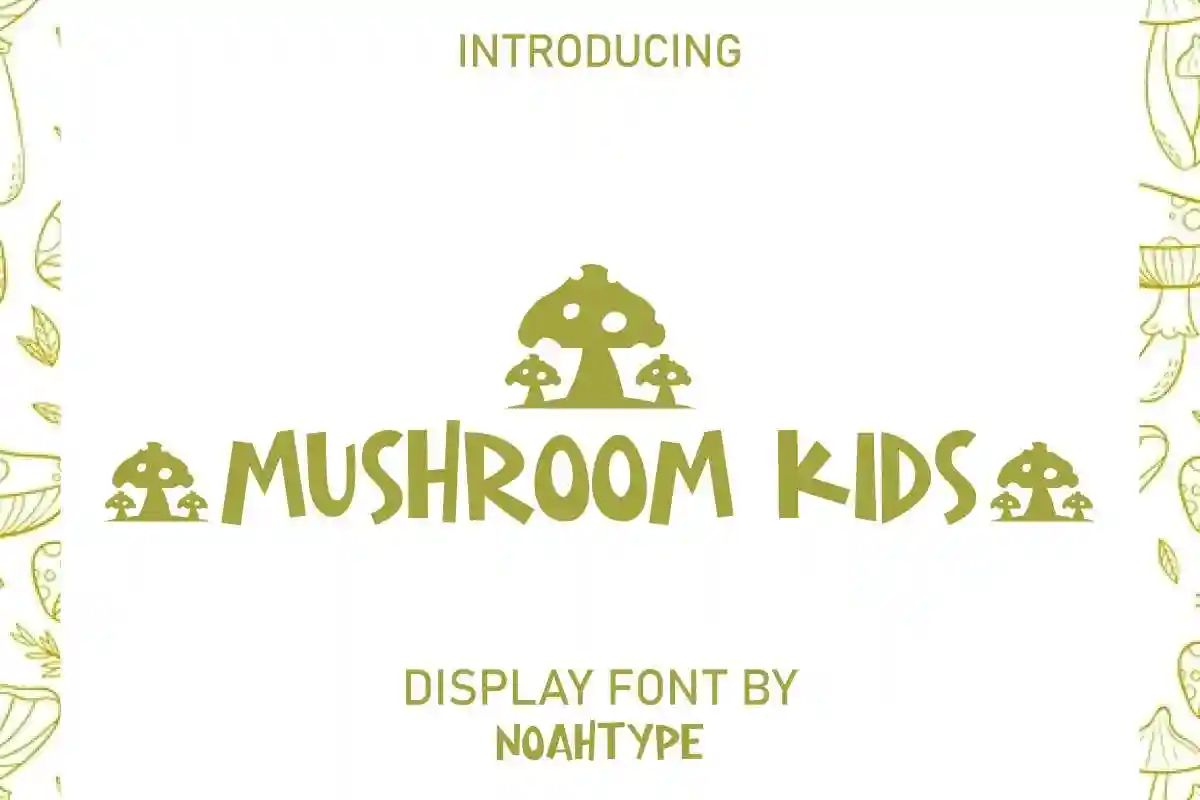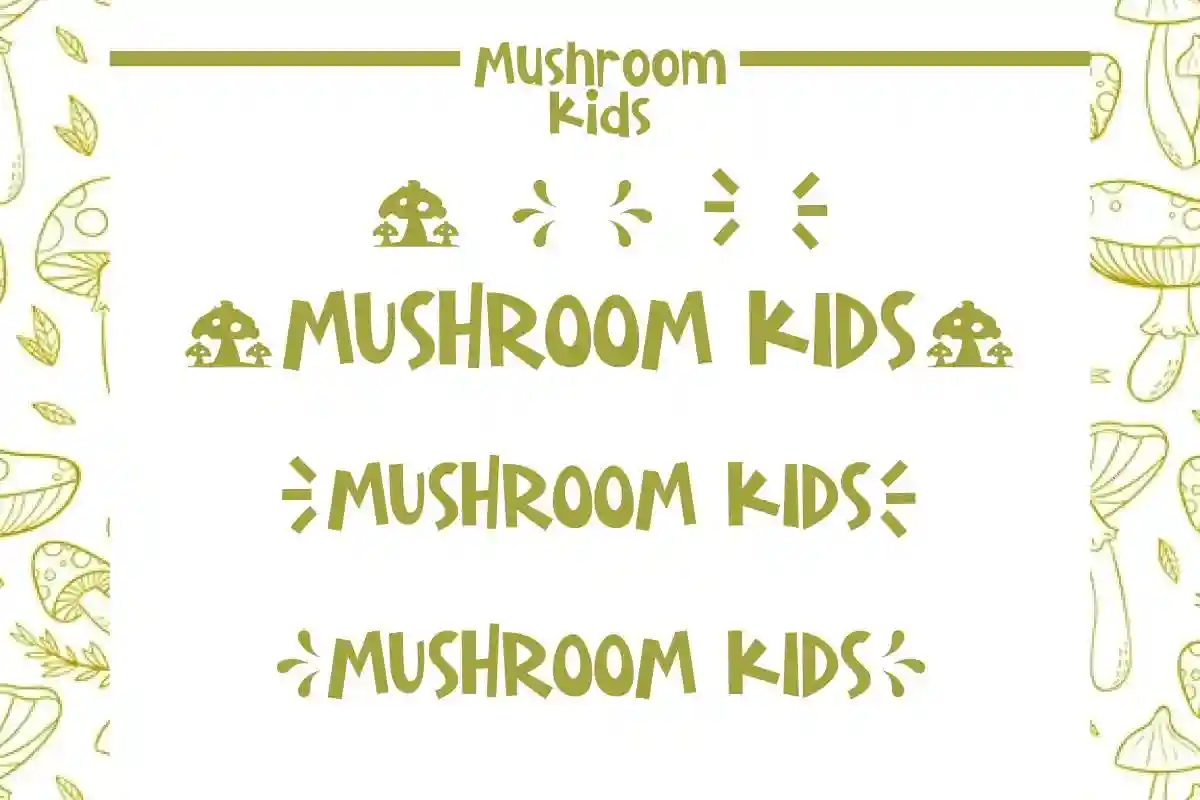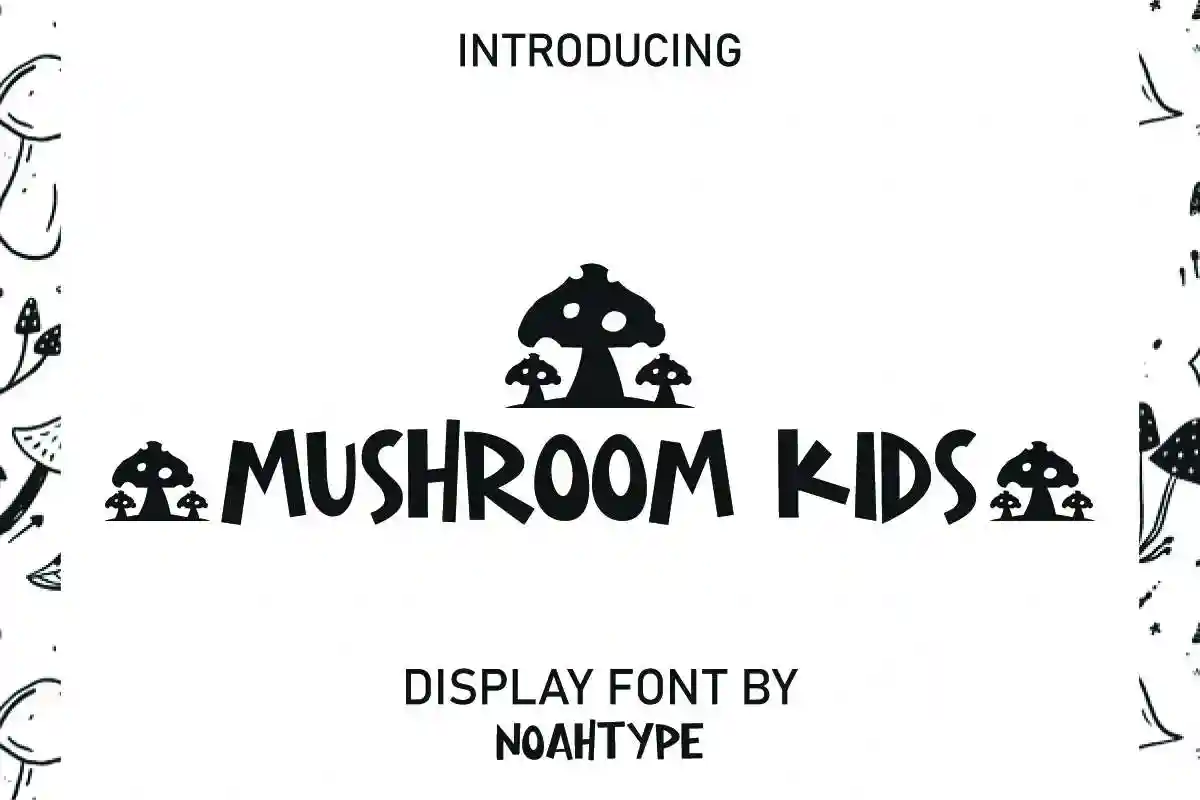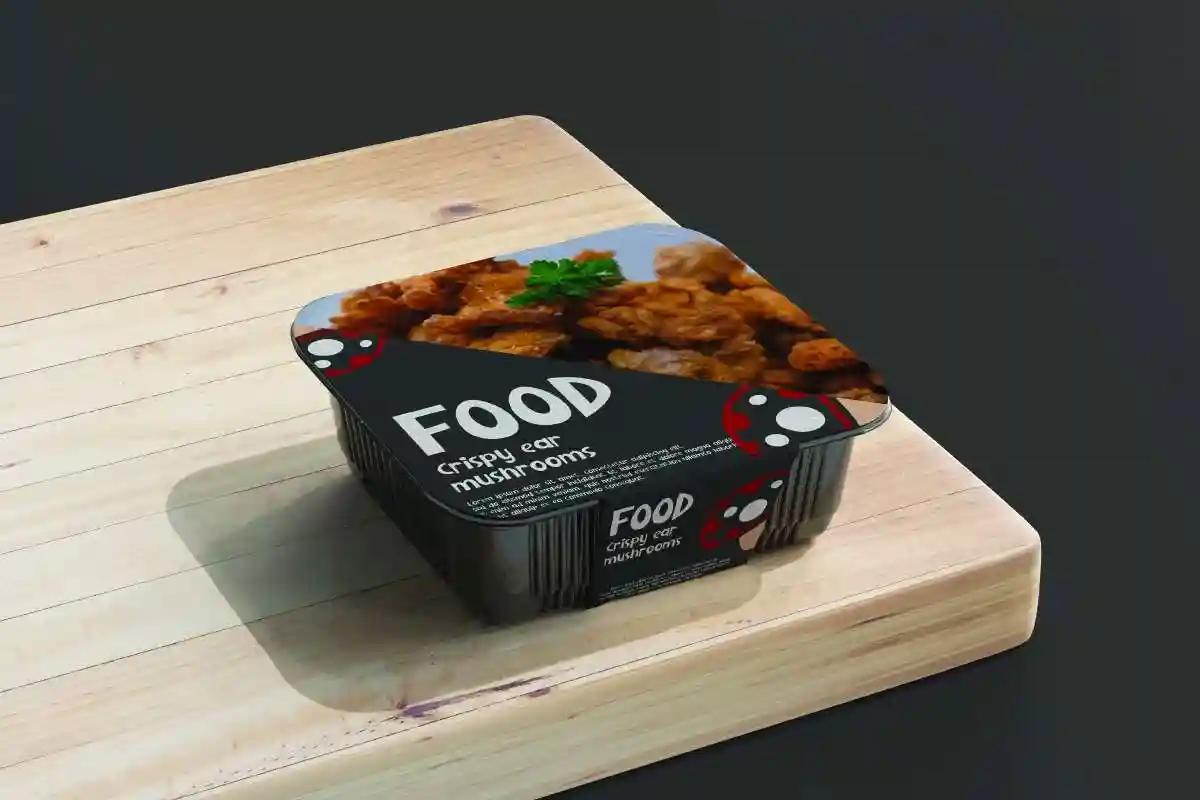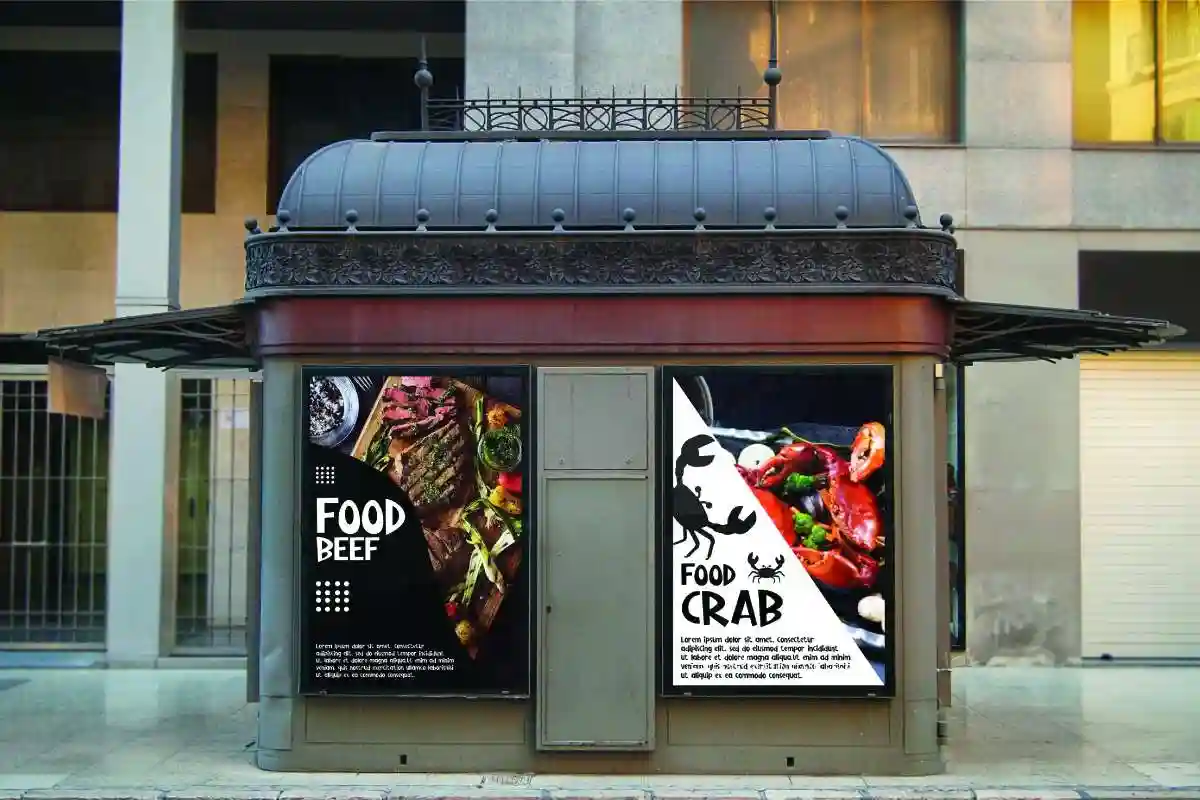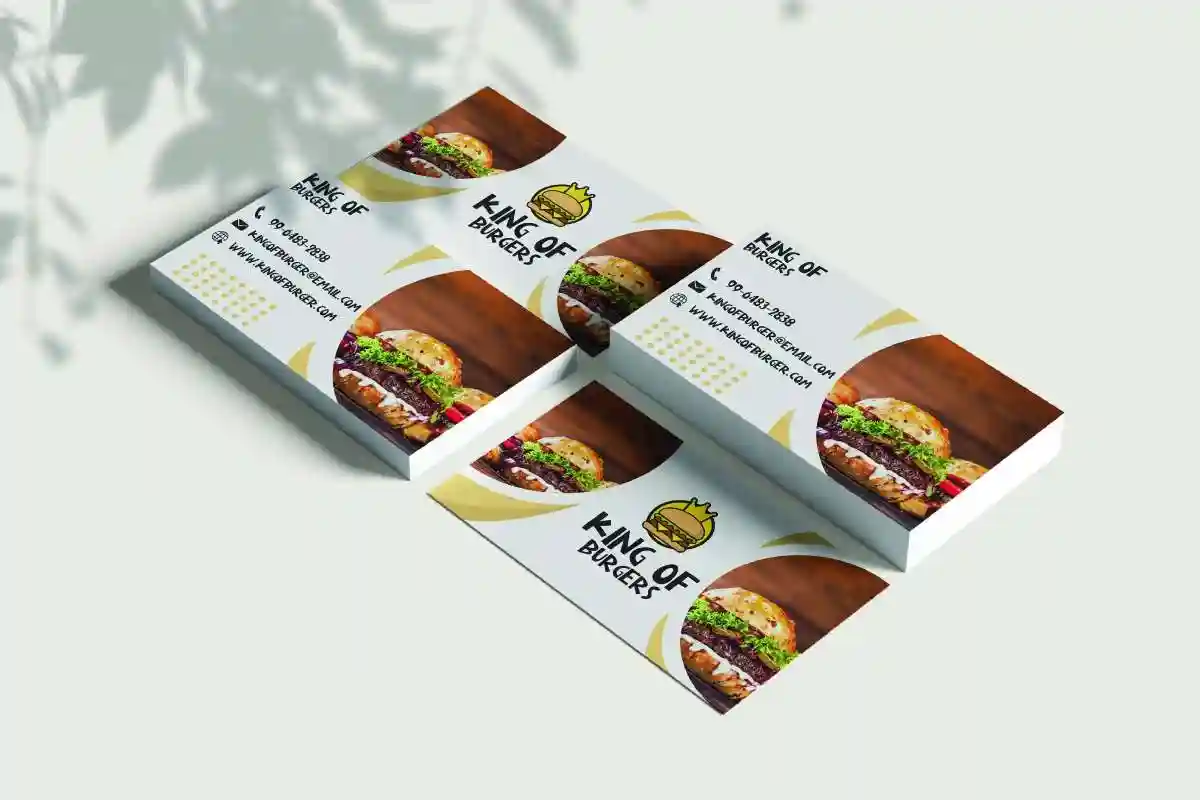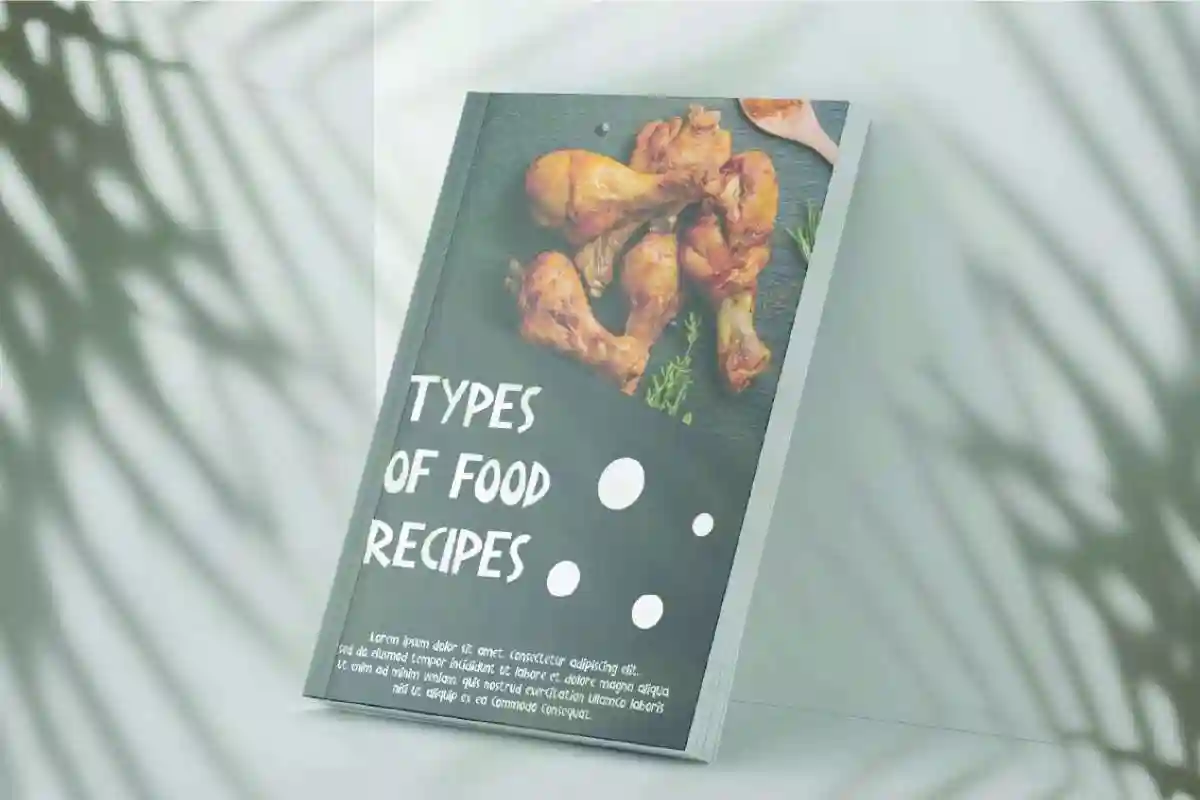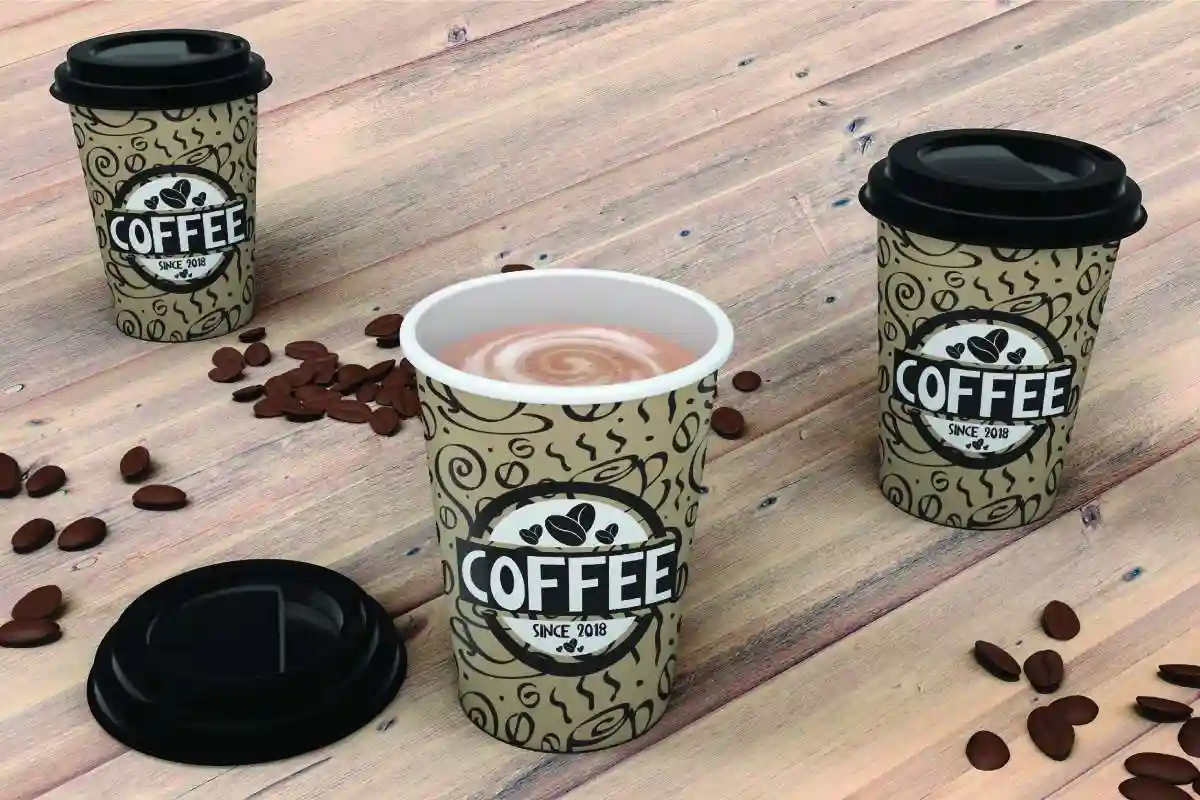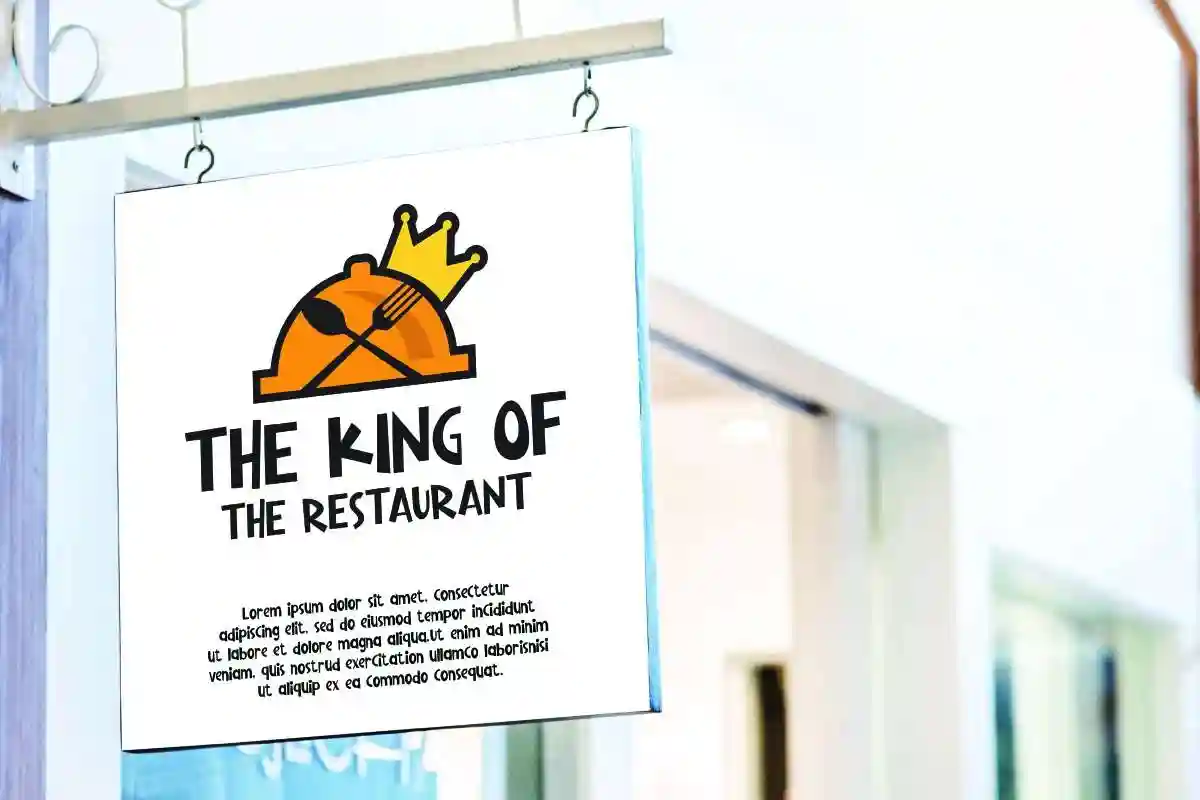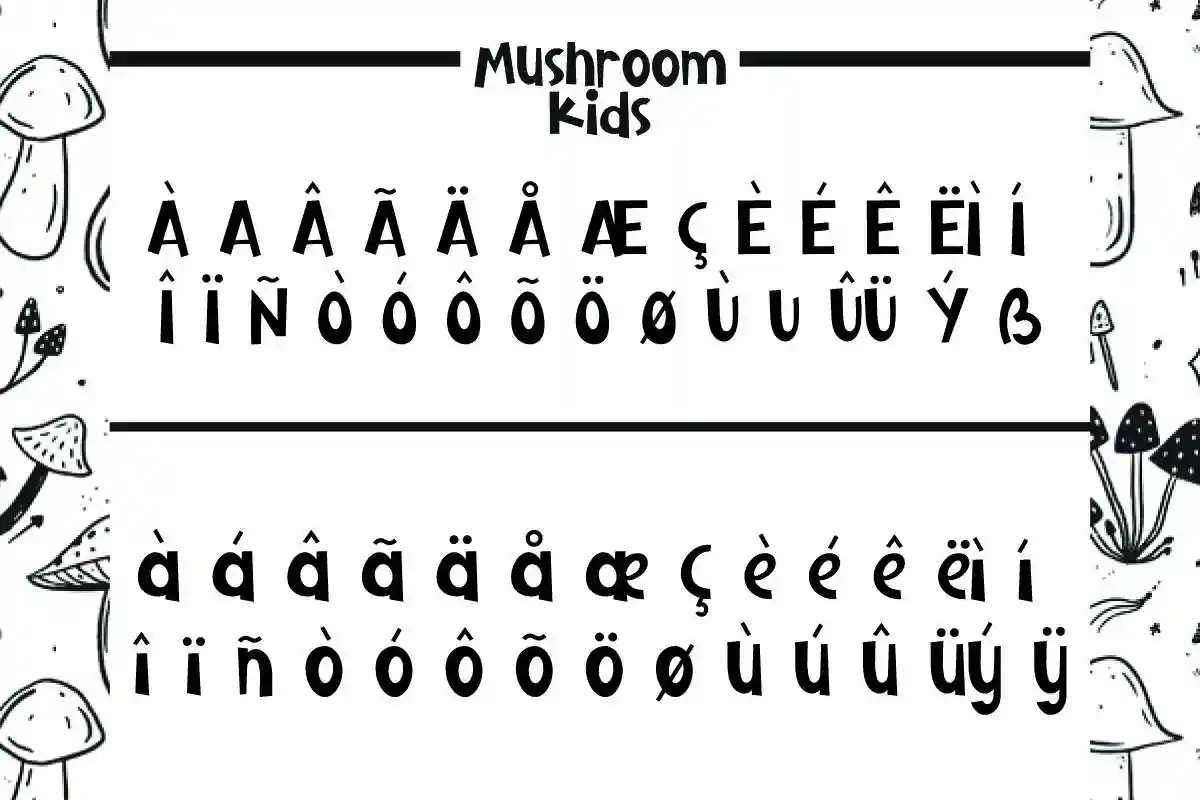
Mushroom Kids Font is a playful sans serif display font with comic kids related style. This funny font is still easy to read and would be awesome for any industry such as: advertisement, café, children’s products, culinary, event, fast food, movie, restaurant, school, publishing, printing, and many more!
Mushroom Kids Font includes full set of Uppercase and Lowercase Basic Characters, Numerals and Punctuation to create a stylish look by adding more unique fonts to enhance your awesome projects. Mushroom Kids Font would be perfect for your projects such as billboard, branding logo, brochure, business card, flyer, invitation, label, menu, product packaging, quote, signage, title, website, etc.
Crafted with care, the Mushroom Kids Display Font features bold, rounded letters inspired by the natural shapes of mushrooms. Its lively and friendly style is designed to engage young audiences and bring your creative ideas to life. Whether you’re creating a logo for a kids’ brand, designing nursery decor, or crafting digital learning tools, this font is your go-to solution for a vibrant and joyful look.
Mushroom Kids Font supports multilingual languages (including multiple currency symbols) with a simple installation, also have swoosh characters options that you can select and use to make it standout. The font will be ready to use both on Windows machine or Mac. It work well on Adobe software such as Illustrator, Photoshop and several other software.